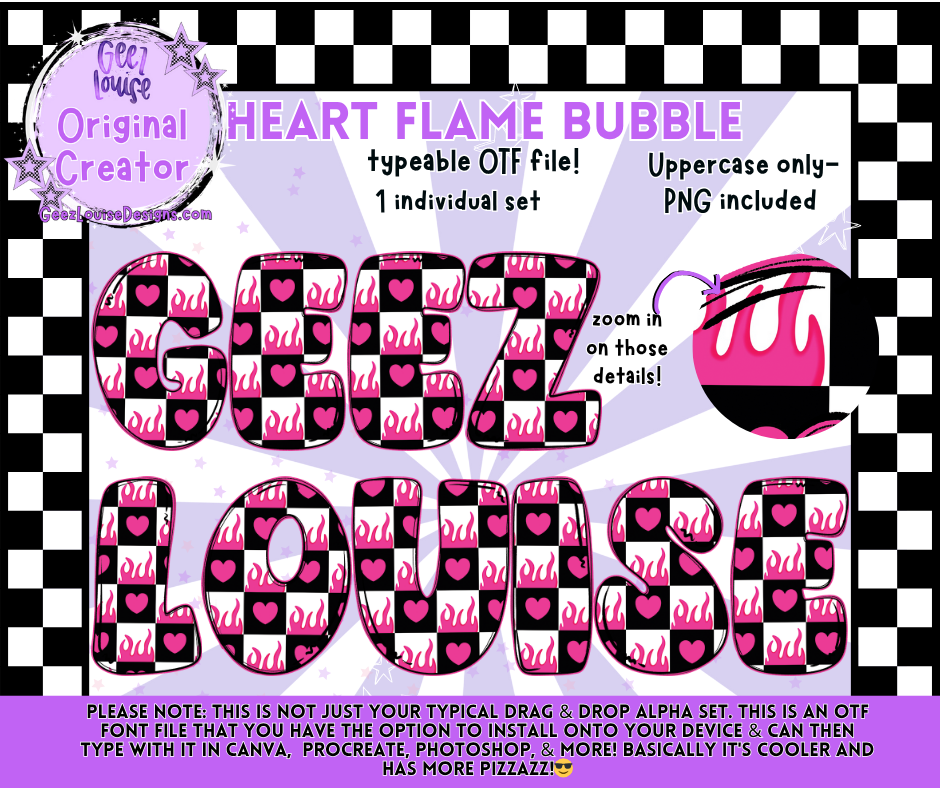
Heart Flame Bubble Typeable OTF Font + PNG Set
Turn up the heat on your designs with the Heart Flame Bubble Typeable OTF Font! 💖🔥
This bold, bubbly font mixes a pink flame-and-heart checkerboard pattern with that classic chunky letter shape — the perfect combo of cute and edgy. It’s a fully typeable OTF file, ready to install on your device so you can type in Canva, Procreate, Photoshop, and more! Each uppercase letter is packed with attitude, ideal for designs that need a little sass and spark.